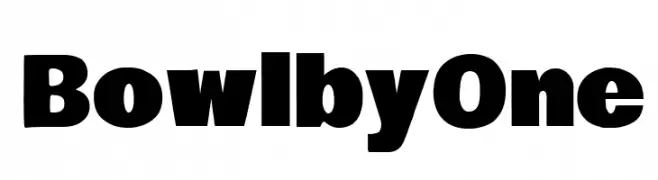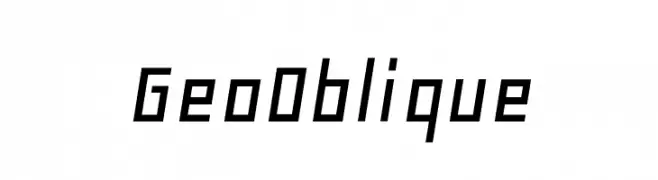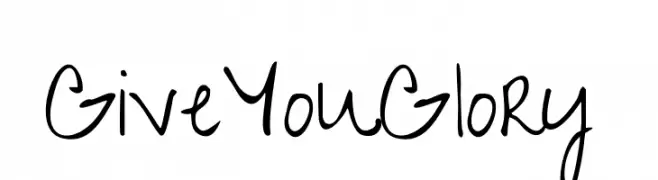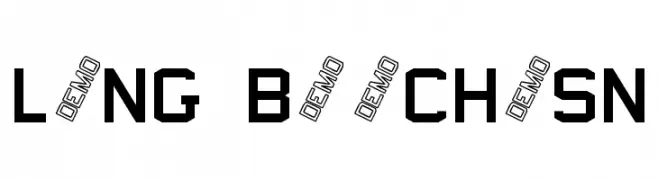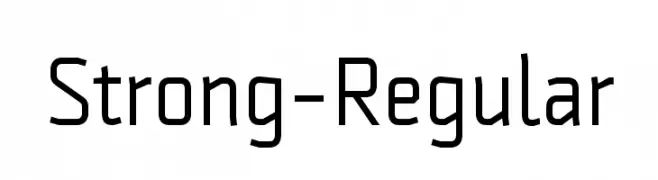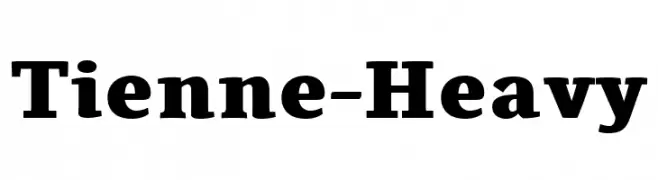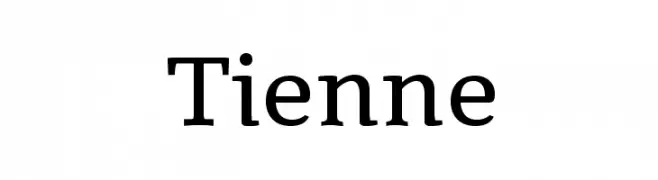
A bold, distressed font with a vintage, textured appearance.
A modern, geometric sans-serif font with a clean and balanced design.
A bold, geometric font with block-like letterforms and sharp angles.
A modern serif font with clean lines and balanced proportions.
A bold serif font with thick strokes and strong serifs, perfect for impactful headlines.
A modern, geometric oblique font with sharp angles and uniform stroke width.
A bold, impactful font with thick, rounded strokes for strong visual statements.
A playful, casual handwritten font with fluid strokes and rounded edges.